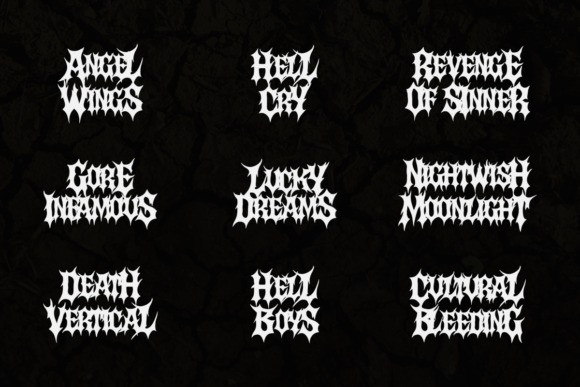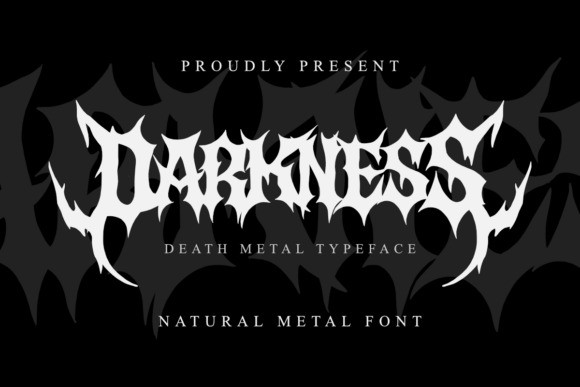
Darkness Font
Darkness Font is a hand-crafted extreme metal font inspired by black metal and death metal band logos. This font features sharp, aggressive, and chaotic letterforms that reflect the raw energy and darrkness of extreme underground music. Perfect for band logos, album covers, posters, apparel, tattoos, merchandise branding, and horror-themed projects. Whether you’re designing for metal bands, horror films, or underground zines, Darknness will give your work a brutally authentic aesthetic.